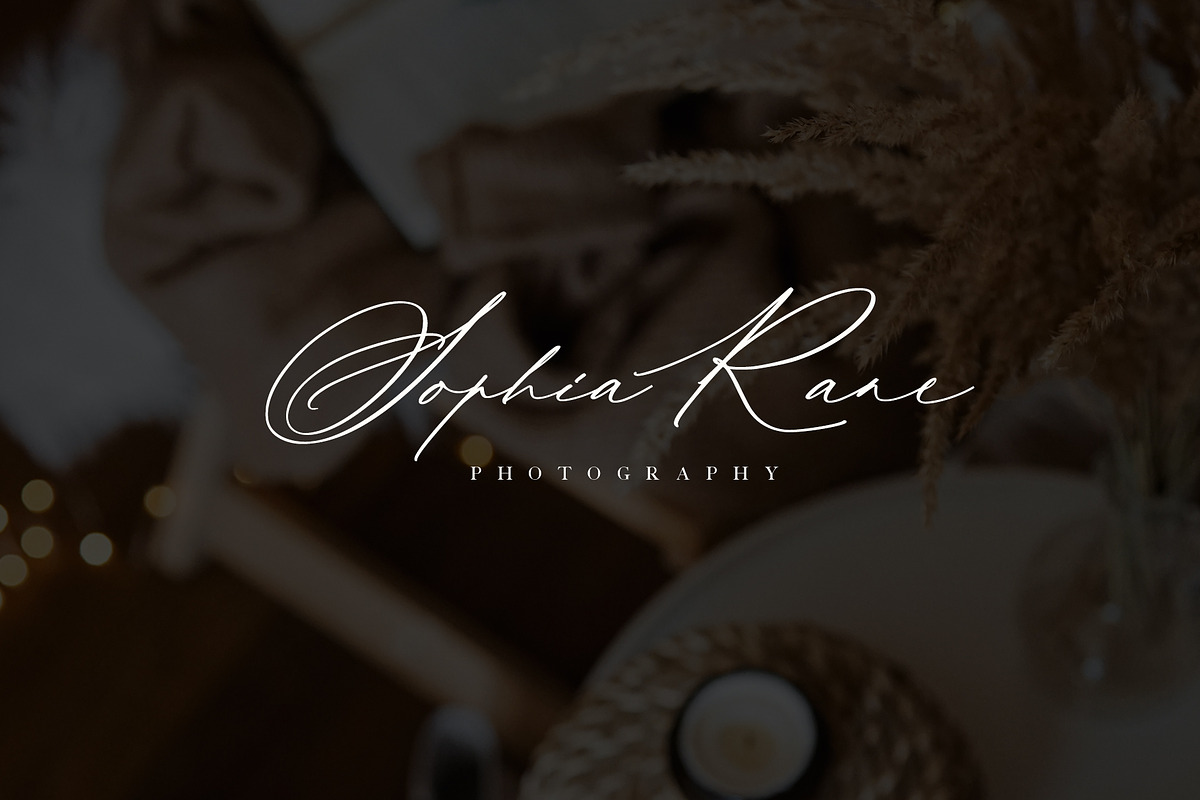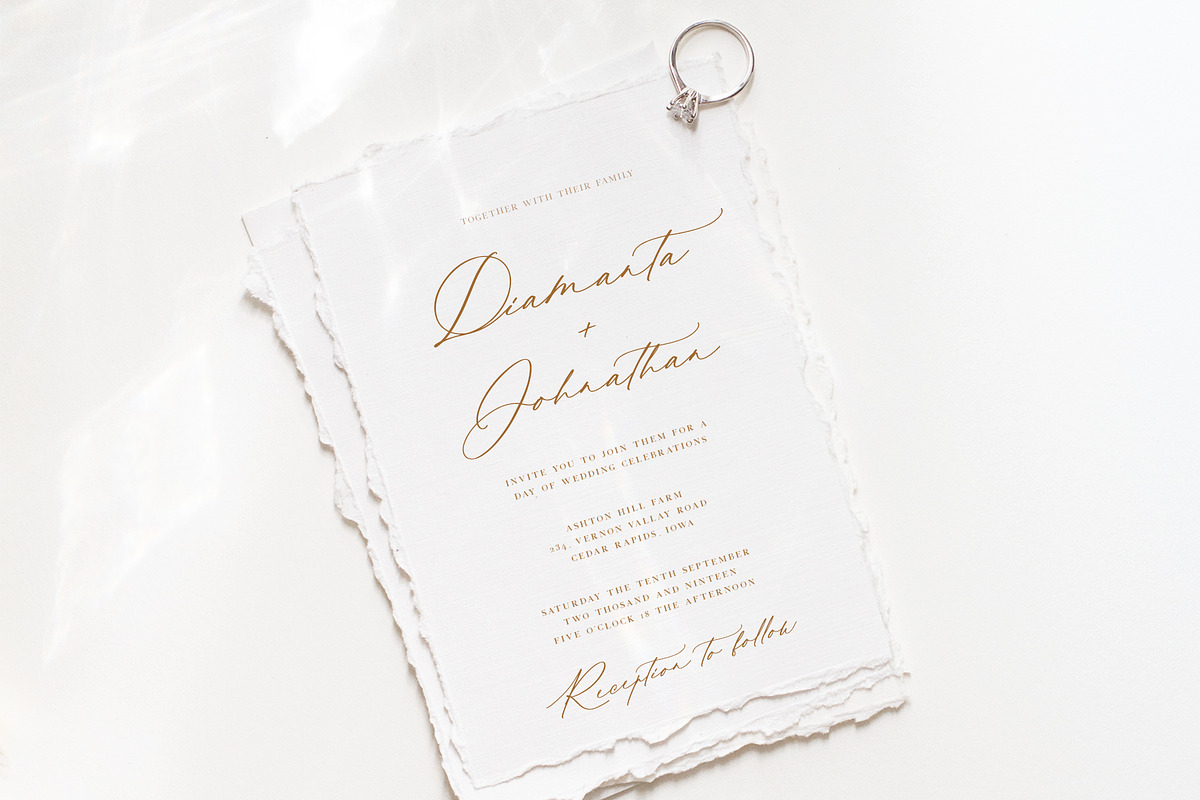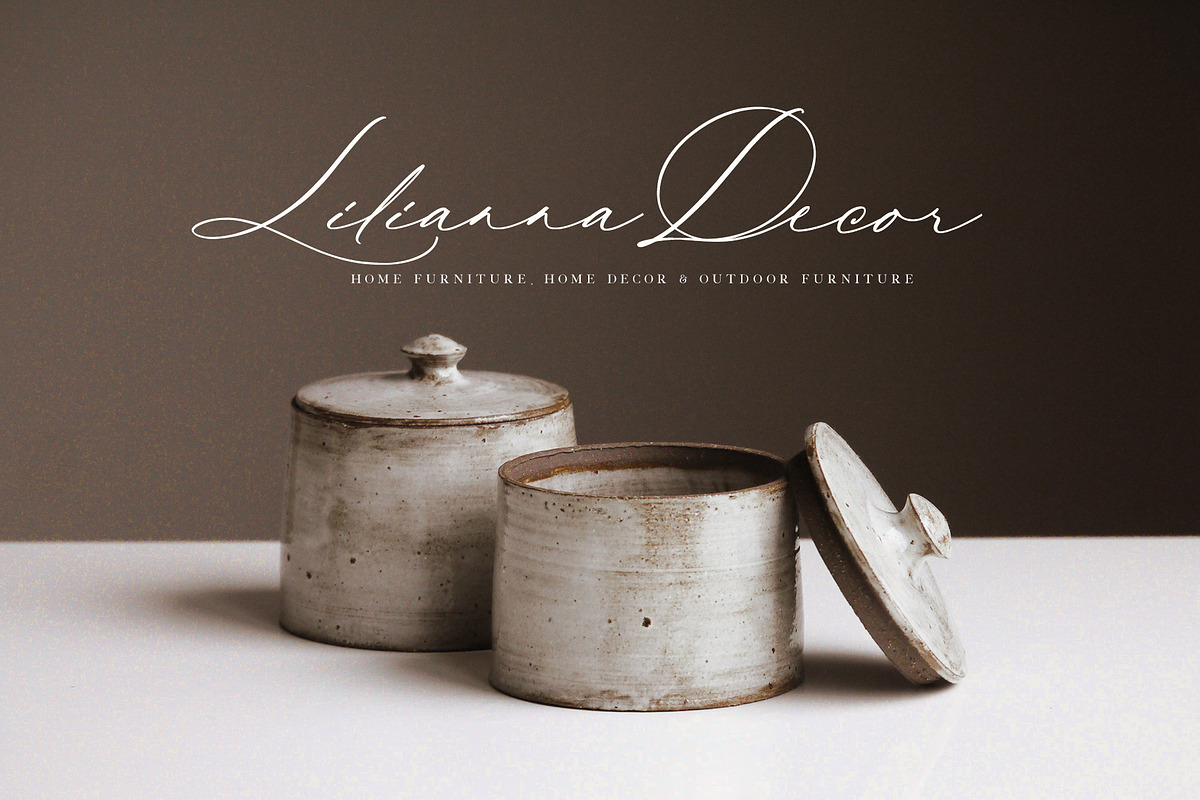
Modernist Font
Modernist Font is a new modern calligraphy font that particularly well suited for wedding invitations, save the date cards and feminine branding. It is perfect for fashion, e-commerce brands, interior brand, or any business.
The font includes full set of Uppercase and Lowercase Basic Characters, Numerals and Punctuation. Also it contains ligatures and the stylistic alternates for lowercase characters to perfectly re-create natural calligraphy.